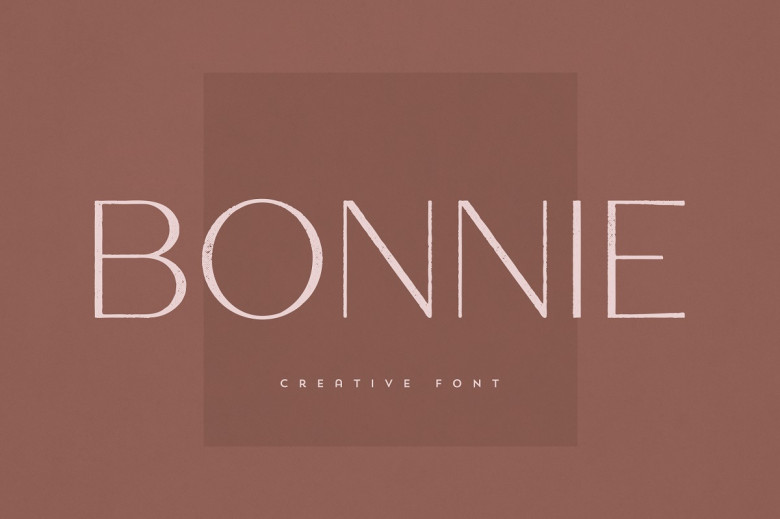
Bonnie Font
Bonnie will add an elegant and versatile sans-serif font that will transform any typography! Perfect for logos, headlines or plain text text.
Bonnie Sans Serif Font